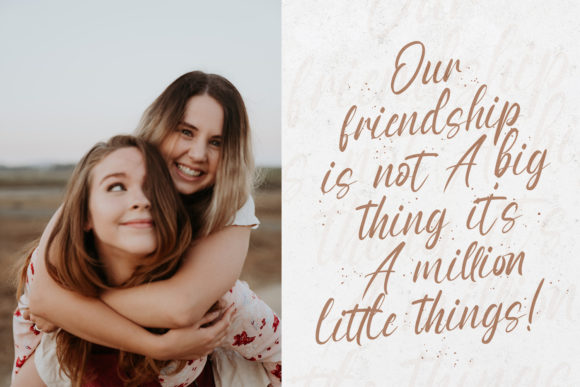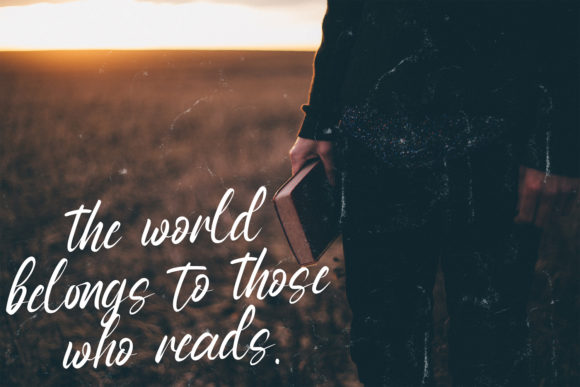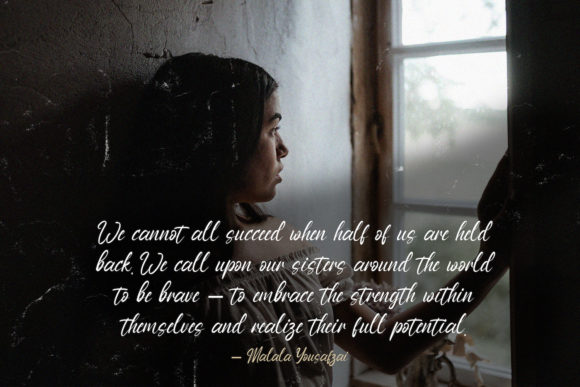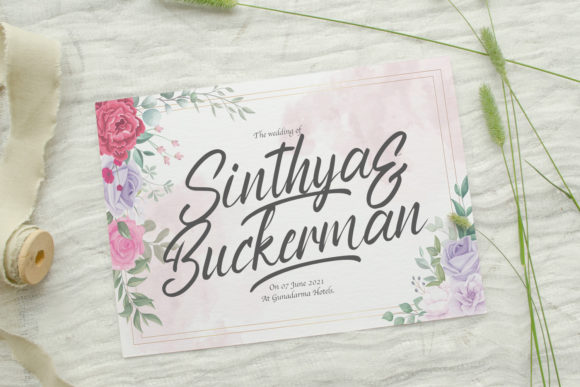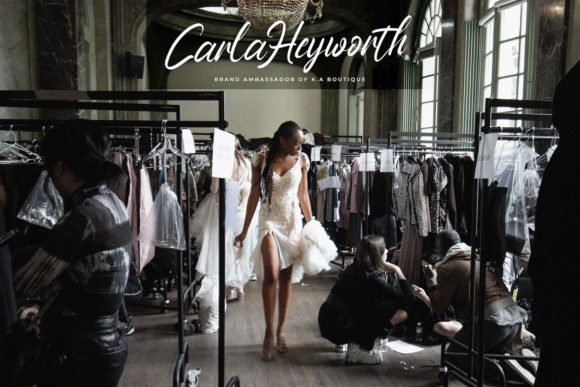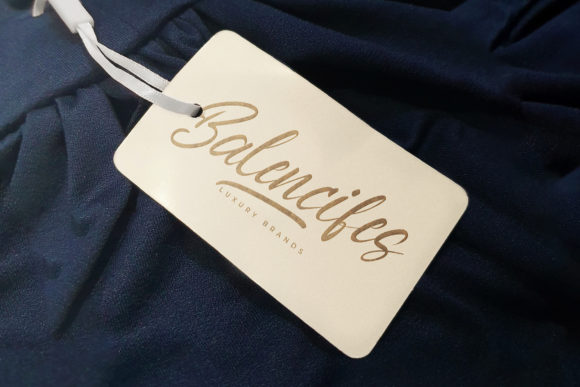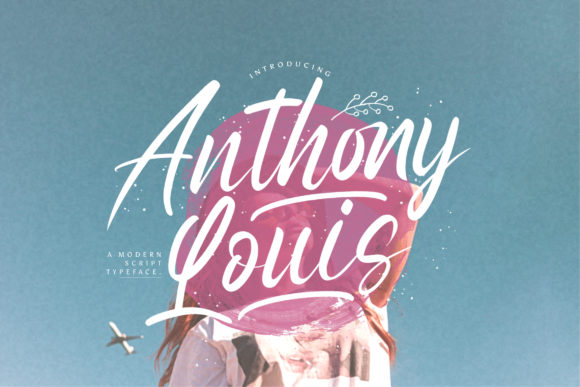
The Anthony Louis Font: A Modern Script Game-Changer for Designers
Have you ever been stuck on a design project, struggling to find the perfect font that captures the essence of your brand or editorial vision? I certainly have! Recently, I was working on a fashion branding project, and my client requested a font that was not only stylish but also highly readable. After scouring through countless font libraries, I stumbled upon the Anthony Louis font, and let me tell you, it’s been a game-changer! 😊
- ✅ Smooth Curves: The Anthony Louis font boasts smooth, flowing curves that give it a friendly and approachable feel, perfect for fashion branding or editorial designs.
- ✅ Readability: This font is incredibly readable, even at smaller sizes, making it ideal for body text or captions.
- ✅ Style Versatility: With its modern script style, Anthony Louis can effortlessly elevate your designs, adding a touch of sophistication and elegance.
- ⚠️ Limited Use in Formal Contexts: While Anthony Louis is perfect for fashion and editorial designs, it might not be the best fit for more formal or traditional projects, such as academic papers or corporate reports.
- ⚠️ Glyph Limitations: As with any font, there might be limitations in terms of glyph availability, so be sure to explore the font’s capabilities before committing to a project.
The Story Behind Anthony Louis: Designer Inspiration
The Anthony Louis font was designed with the intention of creating a modern script font that exudes friendliness and style. The designer aimed to craft a font that would be perfect for fashion branding and editorial designs, while still being highly readable. Although the real story behind the font’s creation is unknown, it’s clear that the designer succeeded in creating a versatile and beautiful font.
Q: What type of projects is Anthony Louis best suited for?
Anthony Louis is perfect for fashion branding, editorial designs, and creative projects that require a modern script font with a friendly feel.
Q: Is Anthony Louis a versatile font?
Yes, Anthony Louis is a versatile font that can be used for a variety of projects, from digital content to print materials.